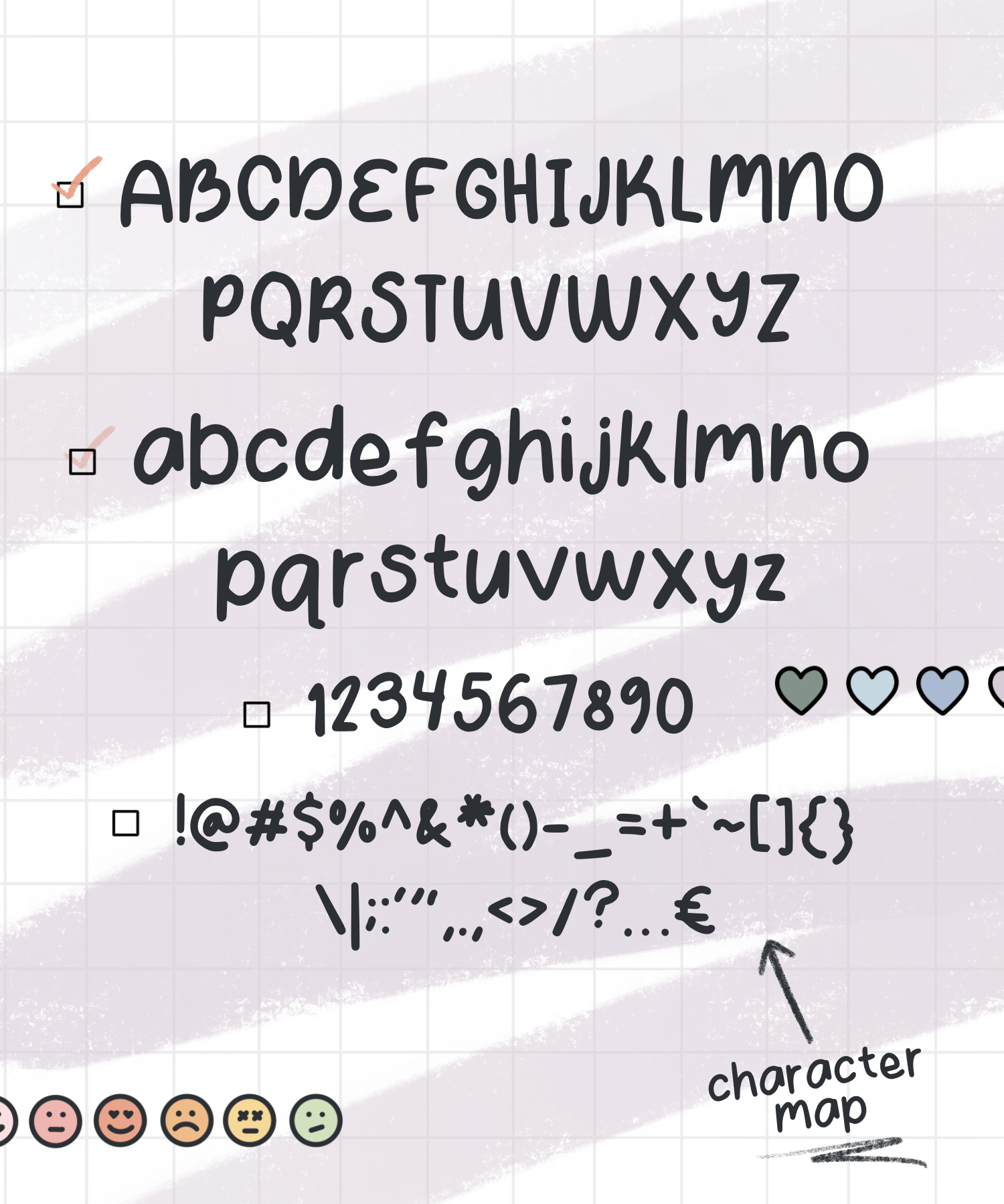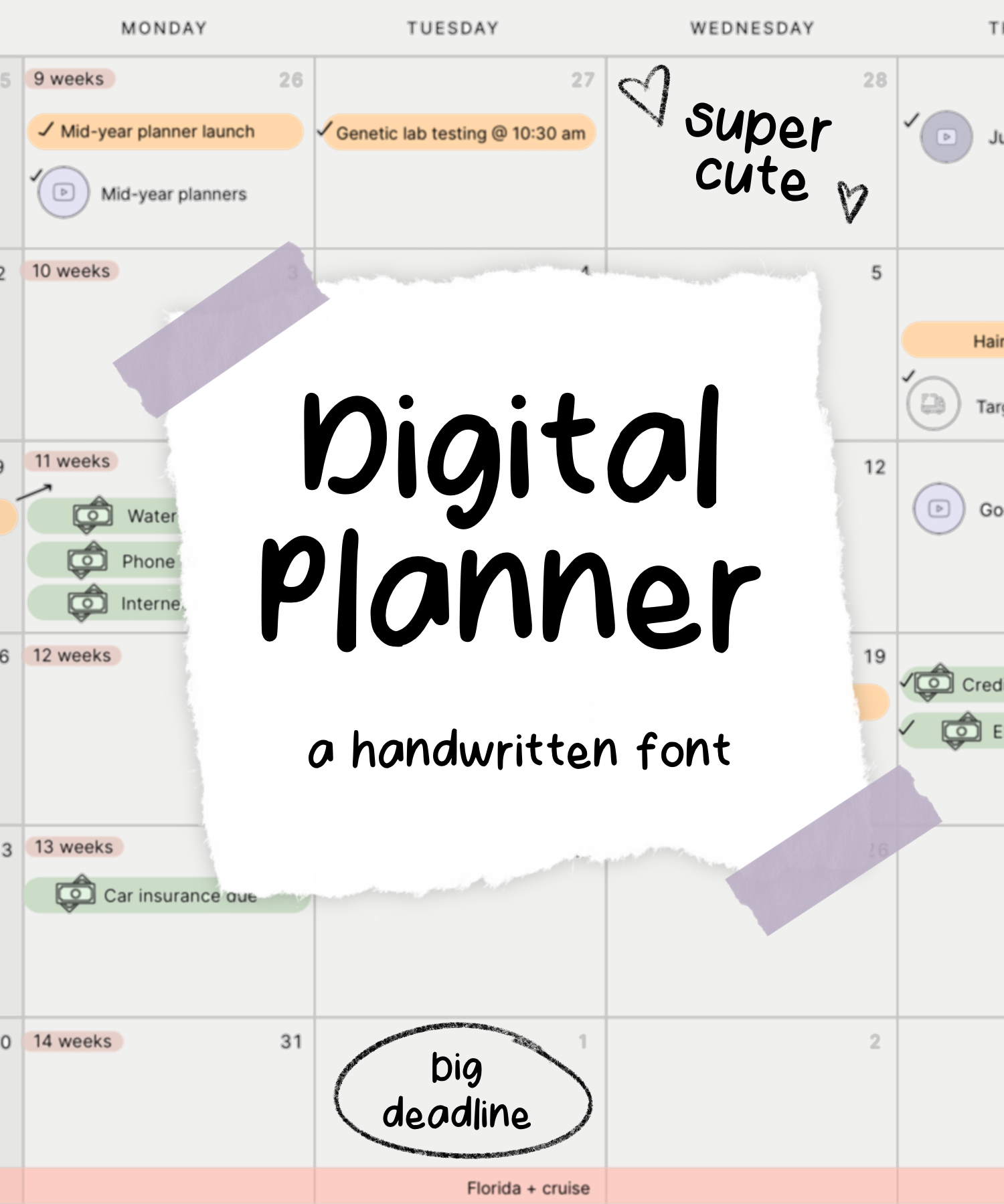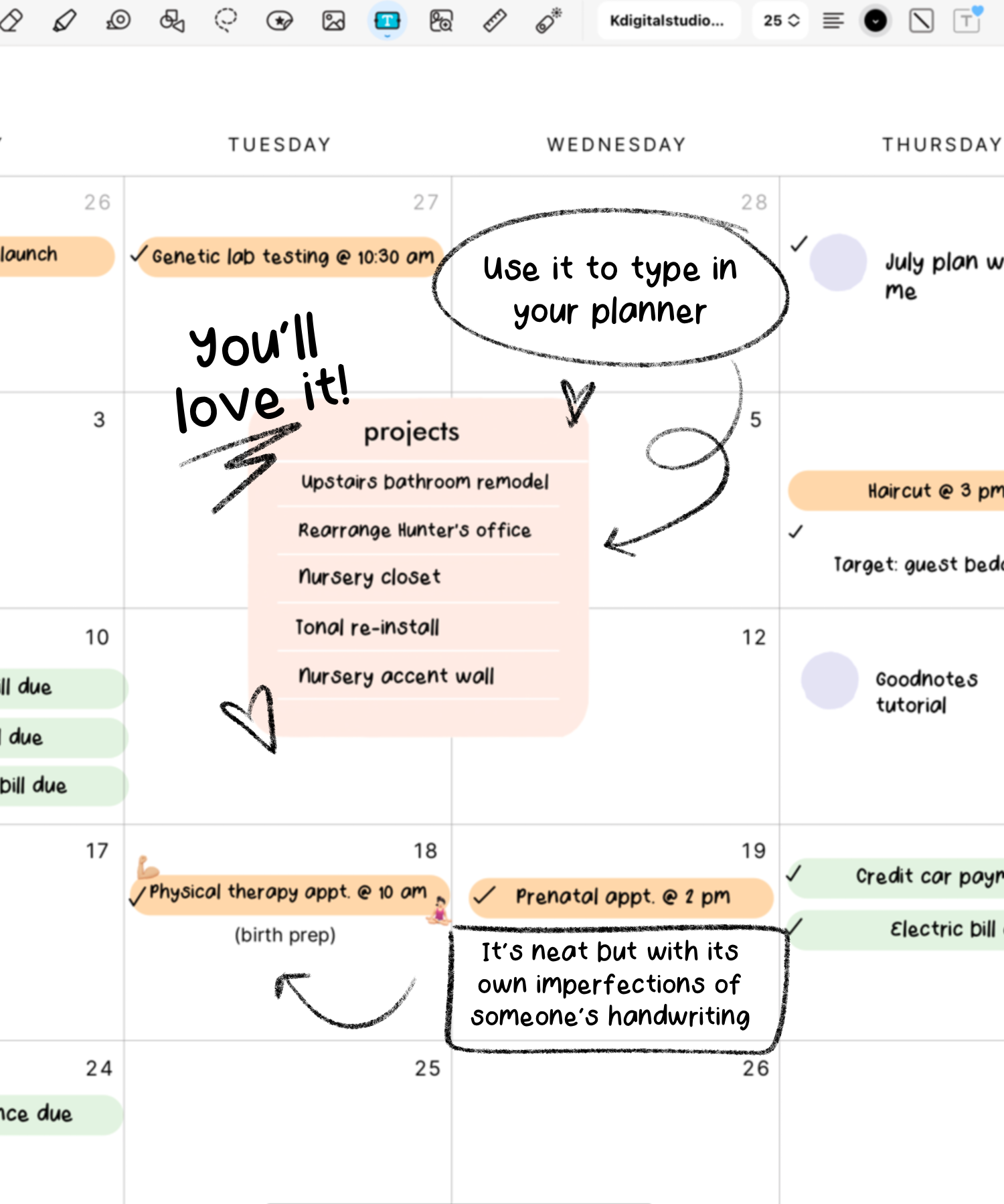
Digital Planner Font
A neat handwritten font perfect for using in your digital planner, notebooks, or design projects. Available as OTF and TTF files.